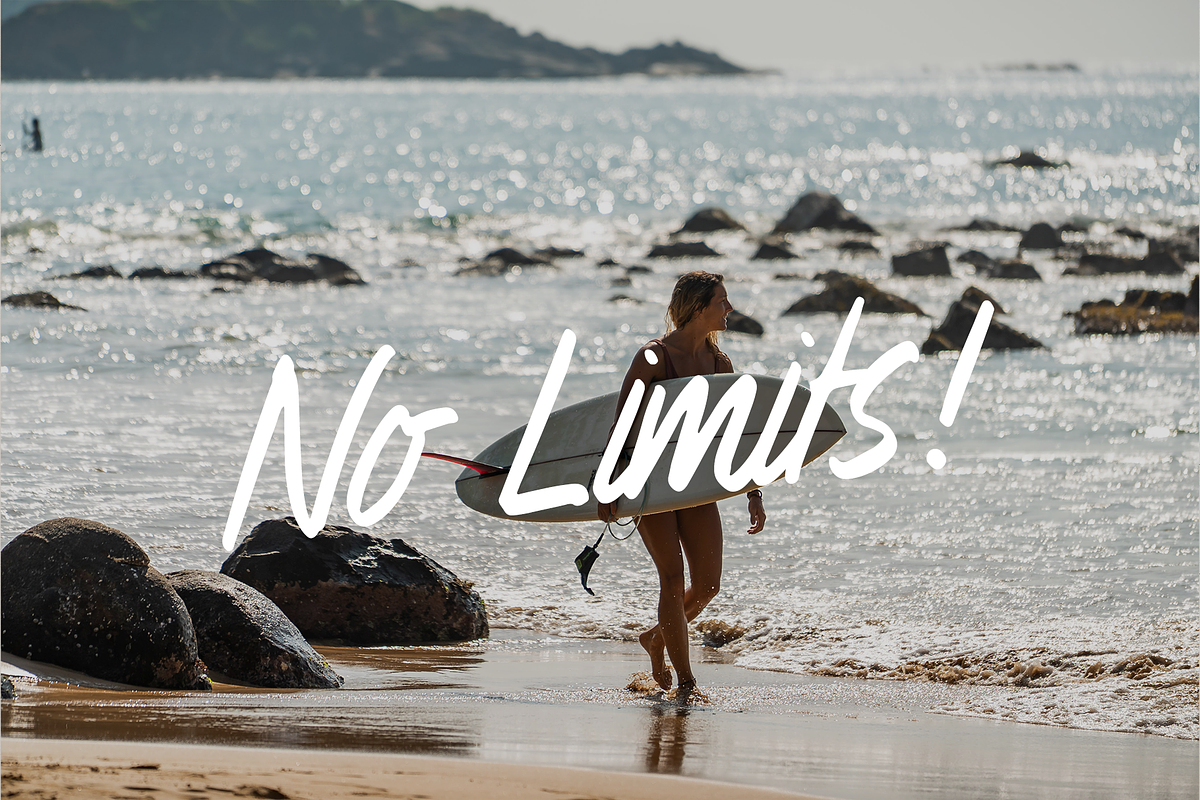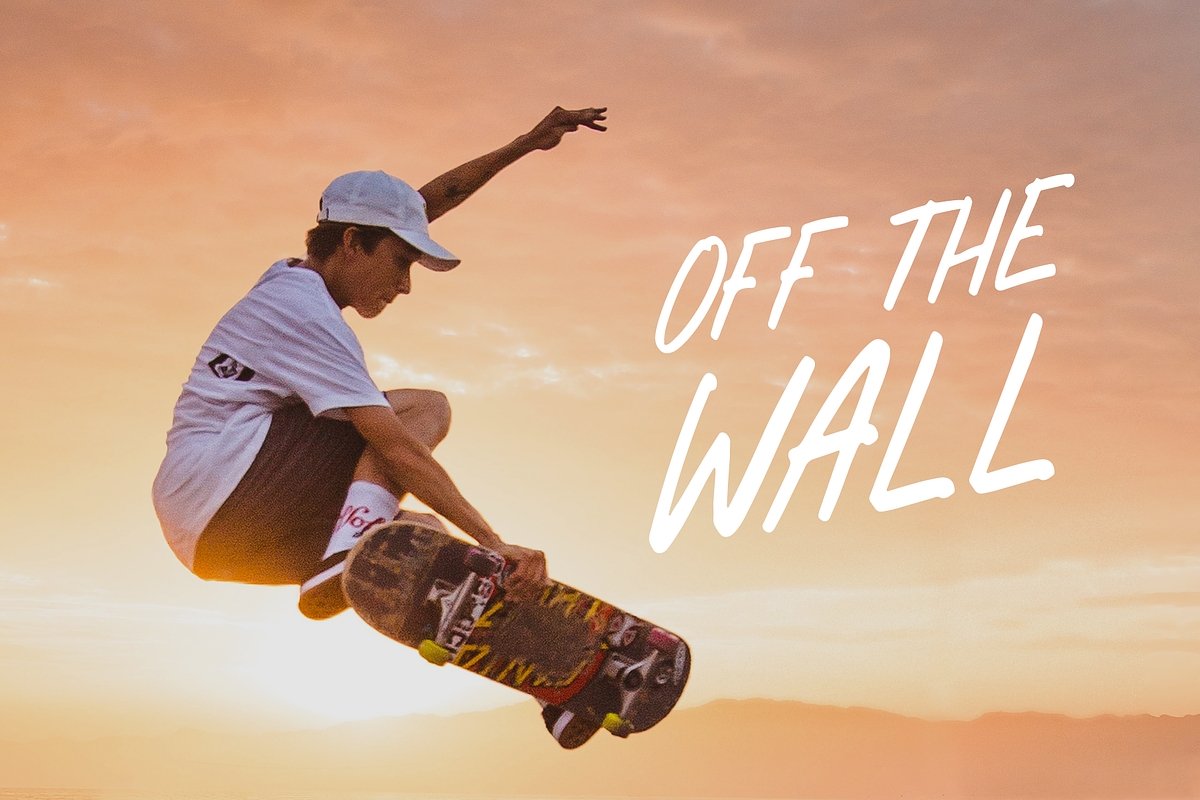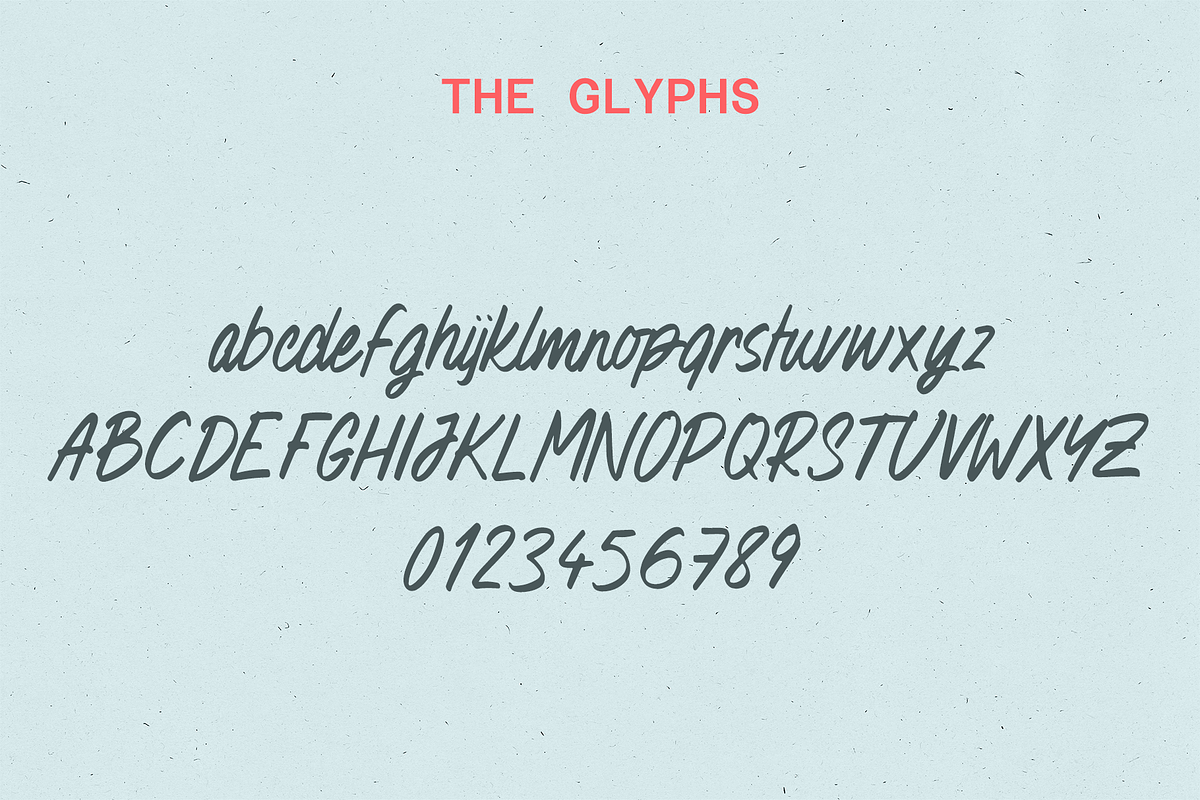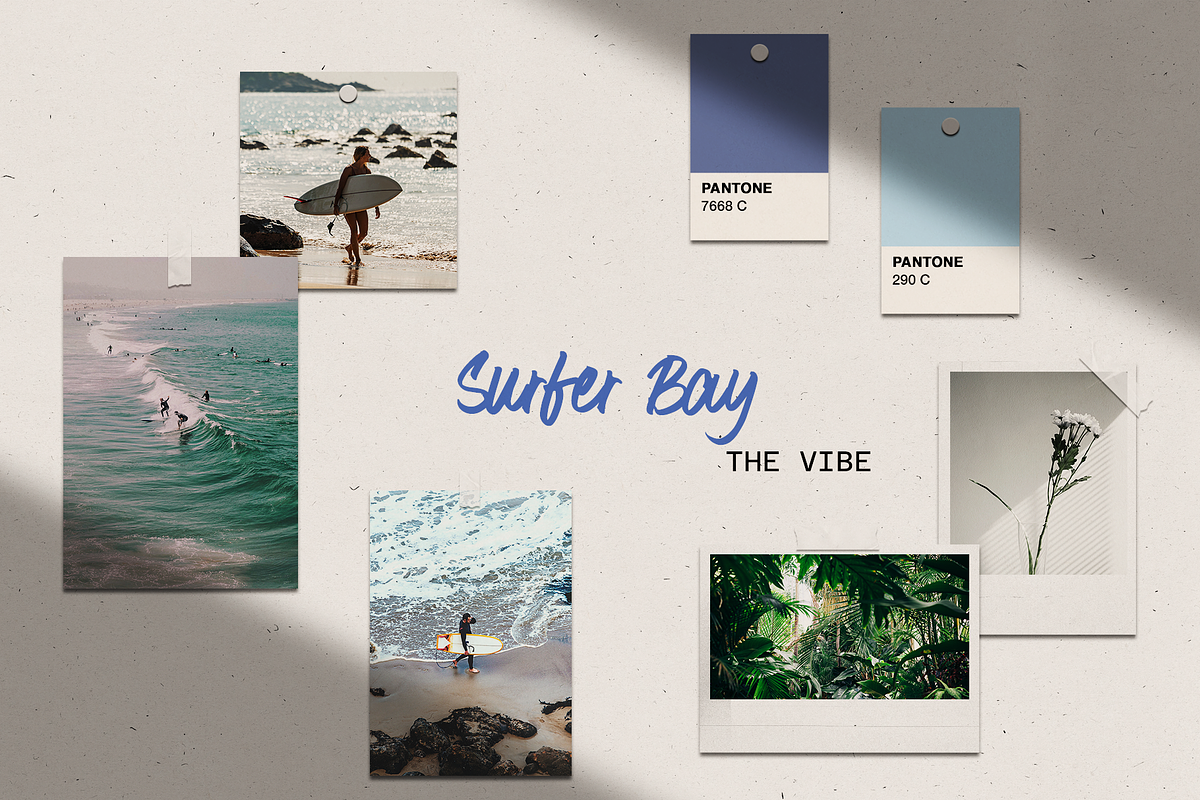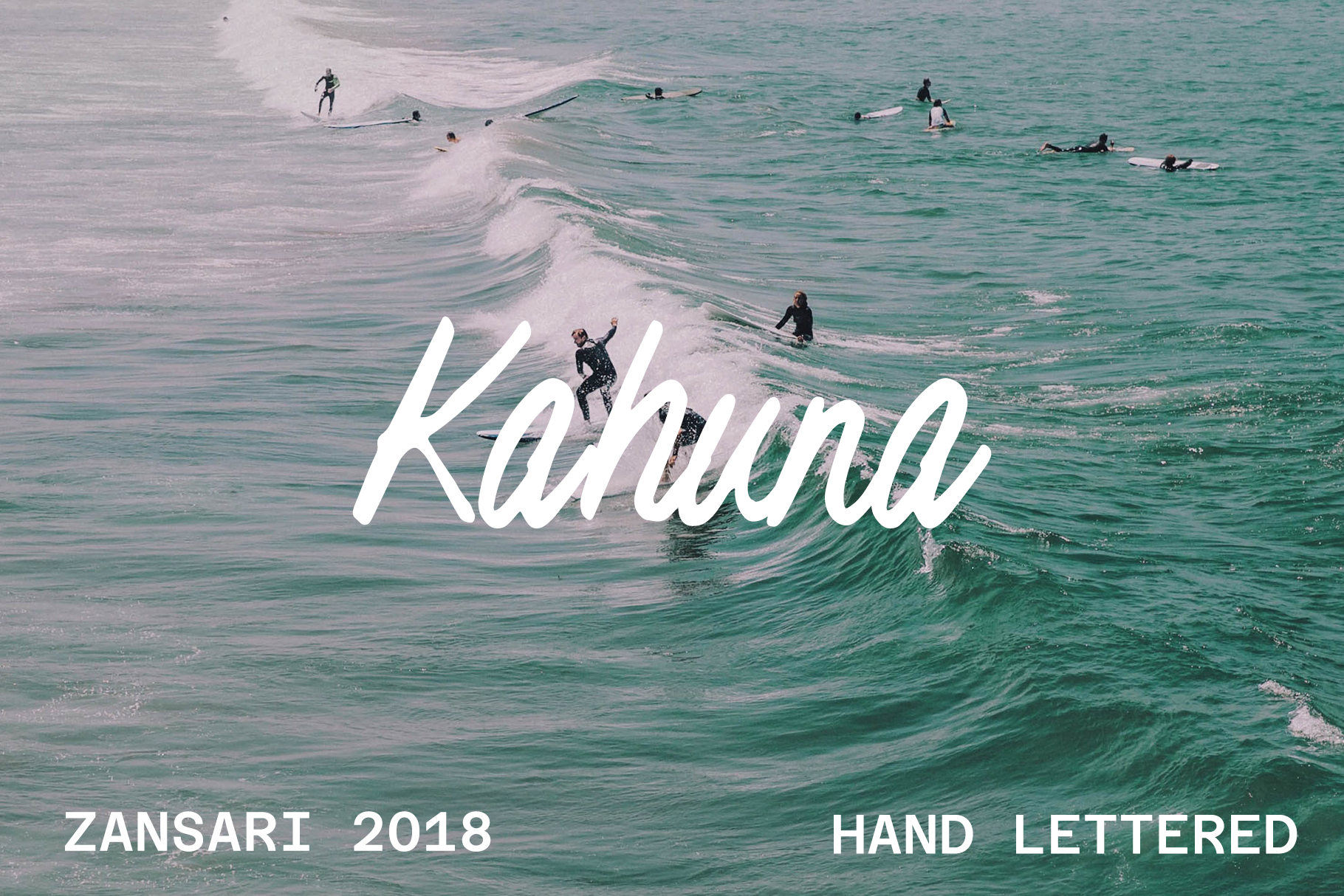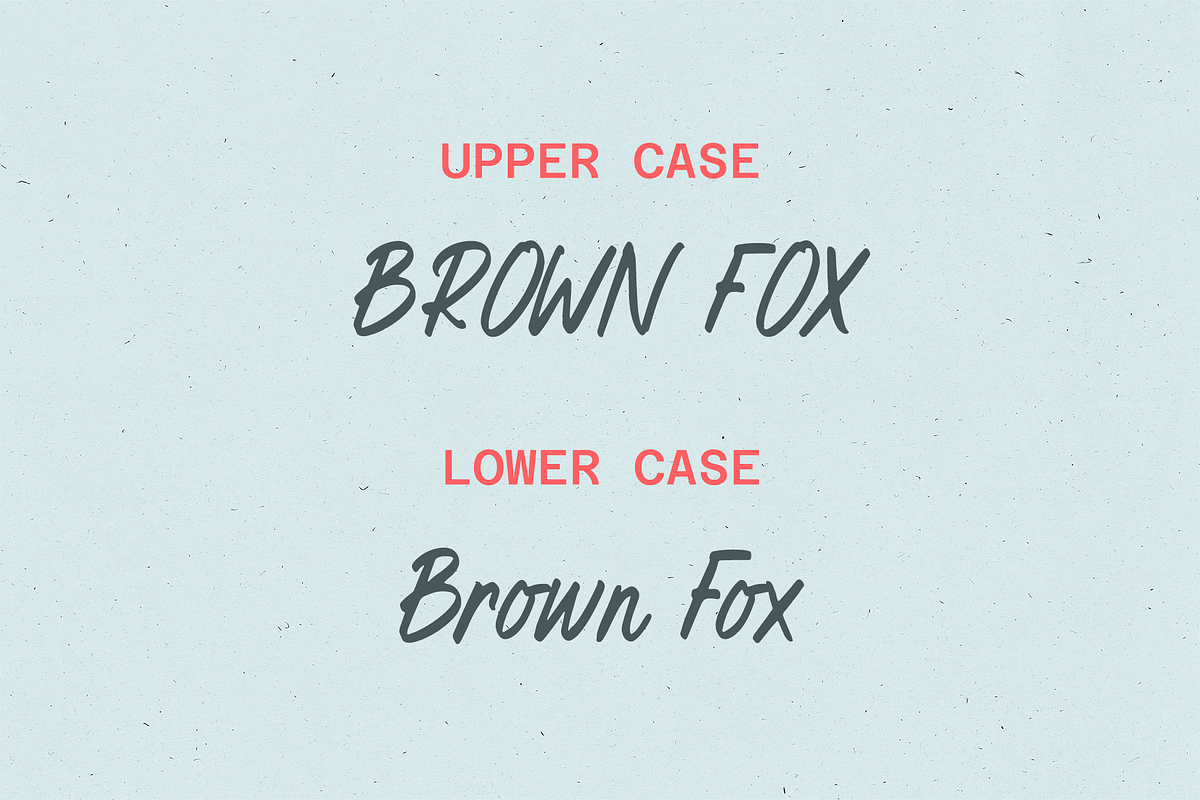
Kahuna brush script font
Kahuna brush font is a modern and beachy styled font. The characters were hand painted, then scanned and vectorised into a digital font file. Surfer Bay brush font was designed by Zansari font foundry in Auckland, New Zealand